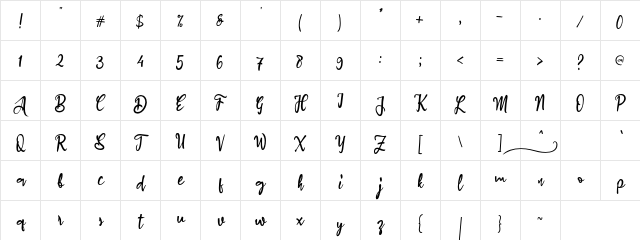
Complete a Amaryllis Flower Regular glyph index. Displaying only characters natively supported by a Amaryllis Flower Regular font.
a Amaryllis Flower is a composed and adaptable typeface that performs quietly and consistently across a wide range of design contexts.